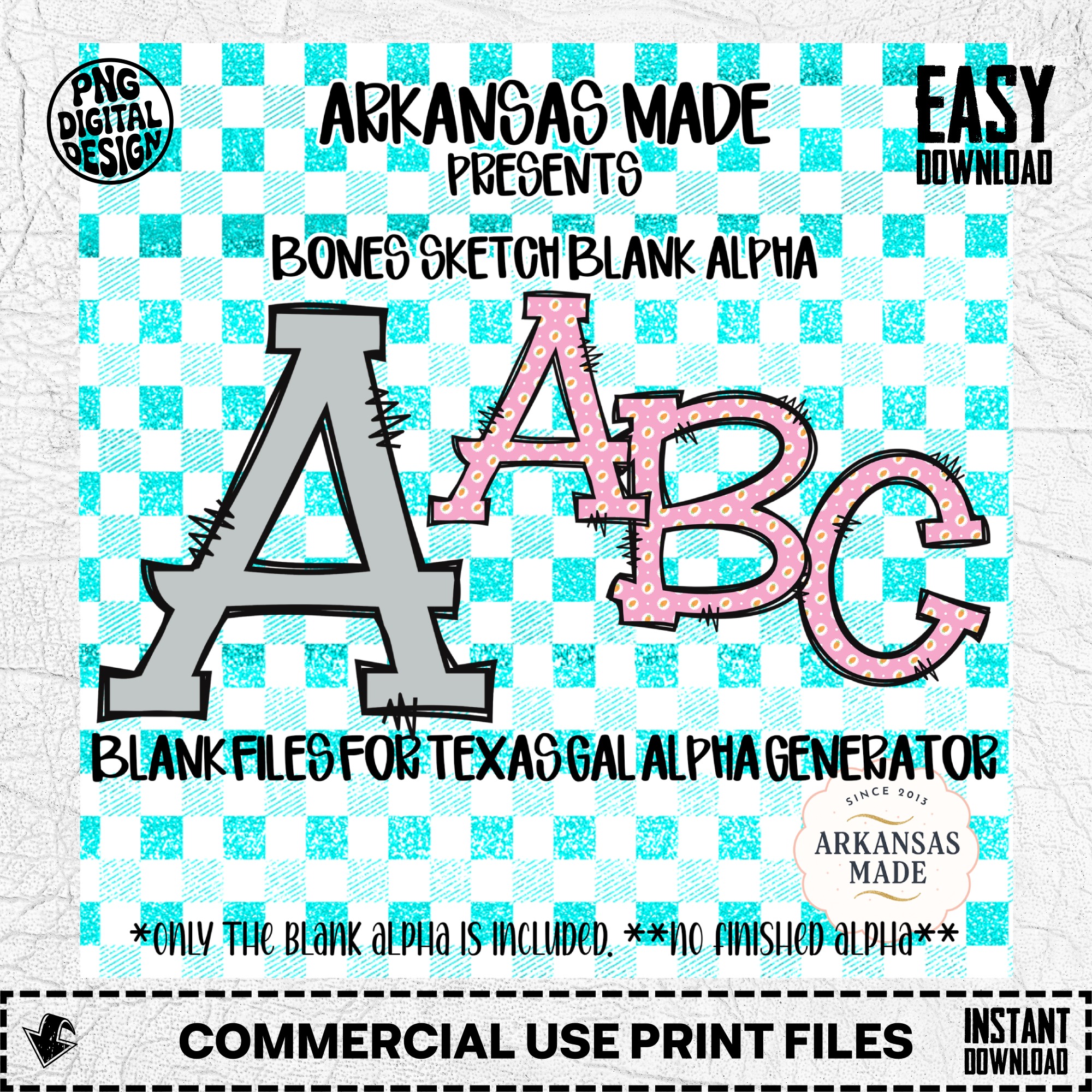
Elevate your crafting projects with our Bones Sketch Blank Alpha Digital Download Blank Alpha PNG. This unique design provides the perfect foundation for creating personalized letters and custom monograms with ease. Specifically crafted to work seamlessly with the popular Texas Gal Alpha Generator, this blank alpha empowers you to unleash your creativity and design one-of-a-kind alphabets. Ideal for crafters, small business owners, and DIY enthusiasts, this versatile digital file is ready for instant download, allowing you to begin your artistic endeavors without delay.
Bones Sketch outline letter design.
Perfect for customization with your own patterns.